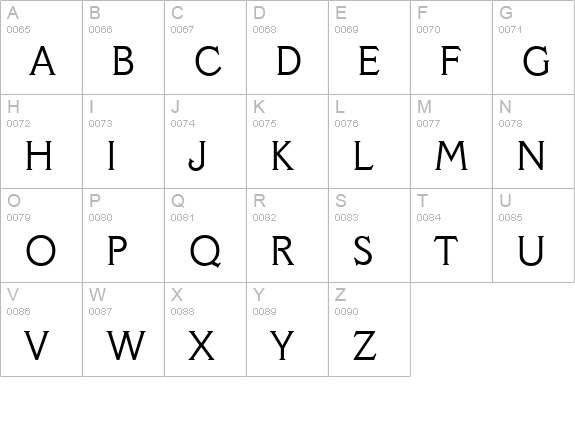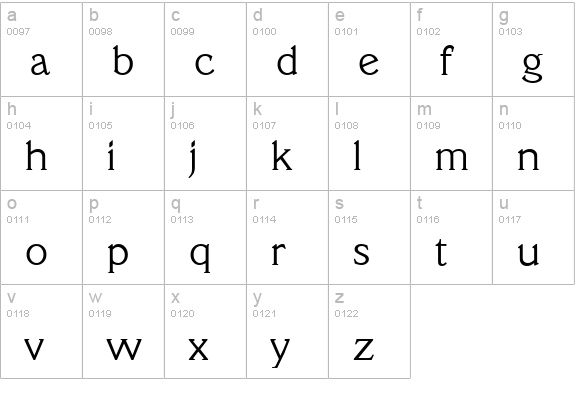
VeracruzSerial-Light-Regular is a refined, elegant variant in the VeracruzSerial typeface family \xE2\x80\x94 well suited to elegant body text, refined sub-headings, and luxury branding.
VeracruzSerial-Light-Regular font is a modern and elegant typeface that exudes sophistication and style. With its clean lines and balanced proportions, this font is perfect for a wide range of design projects, from branding to editorial design. The light weight of the font adds a touch of delicacy and refinement to any text. One of the best features of VeracruzSerial-Light-Regular font is that it is completely free to download at FontsMarket.com. This means you can easily access this high-quality font without any cost, making it a valuable addition to your font library. Whether you're a professional designer or a hobbyist, VeracruzSerial-Light-Regular font offers versatility and beauty for all your creative endeavors. Don't miss out on the opportunity to enhance your designs with the timeless elegance of VeracruzSerial-Light-Regular font. Download it for free today and elevate your projects with this exquisite typeface.